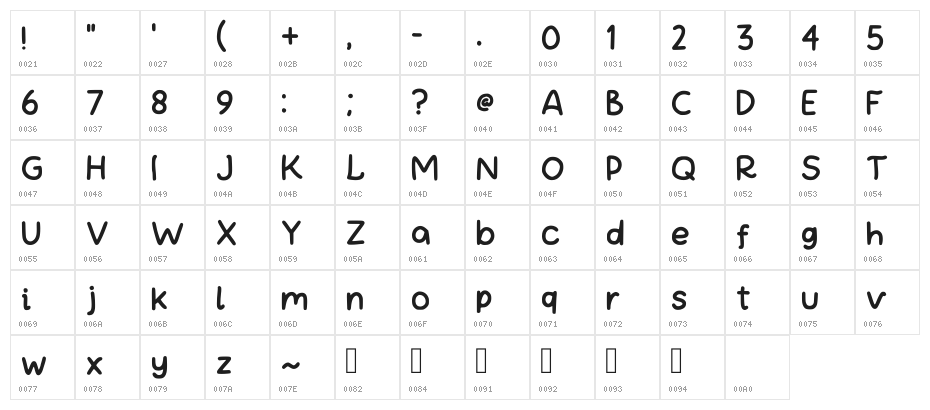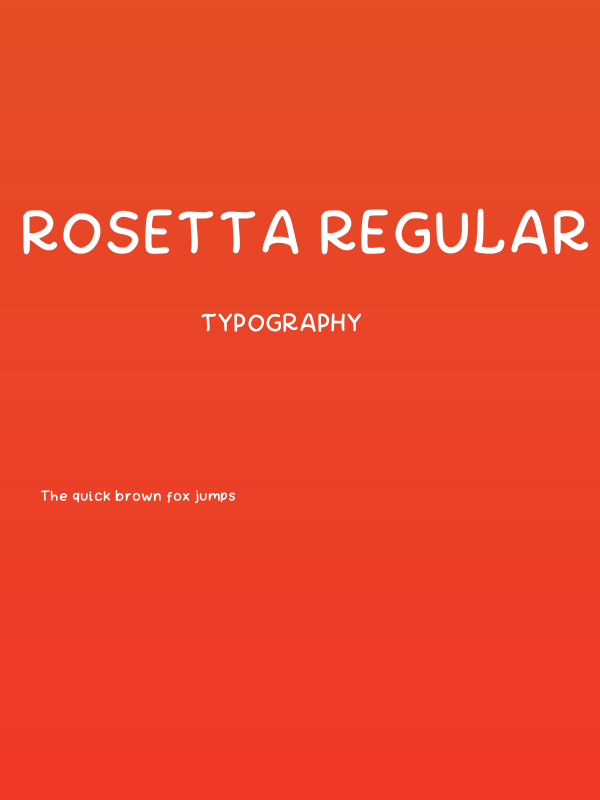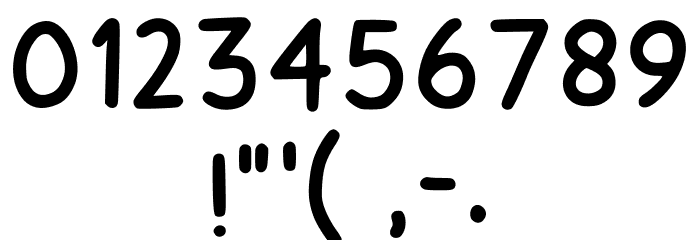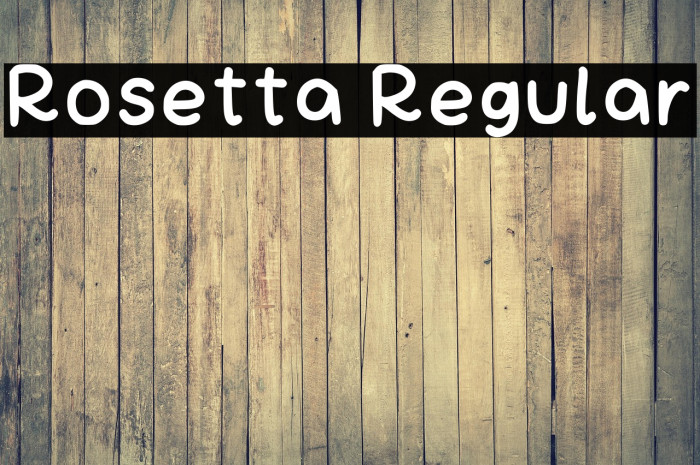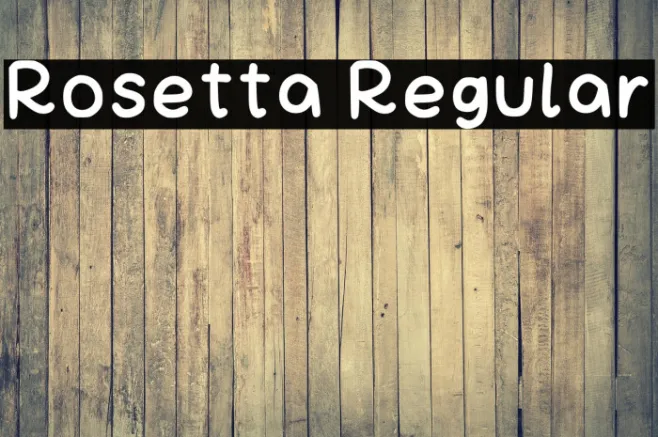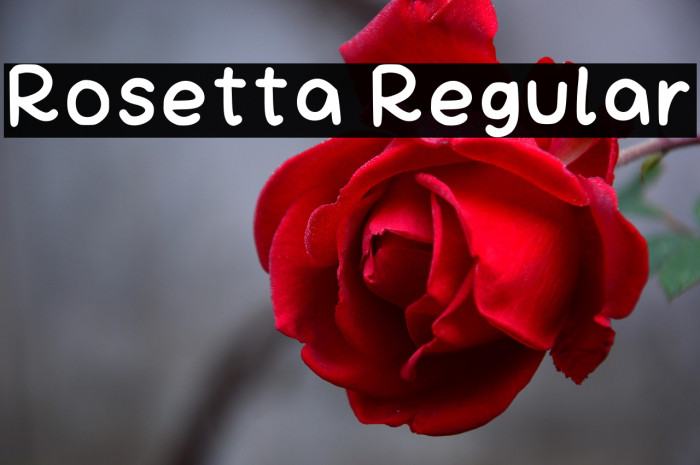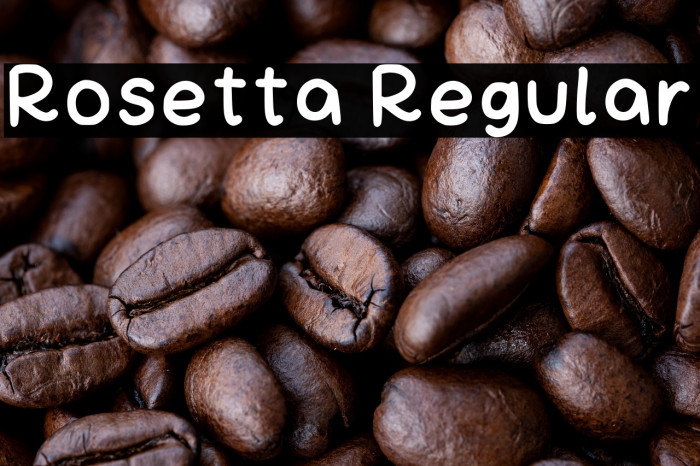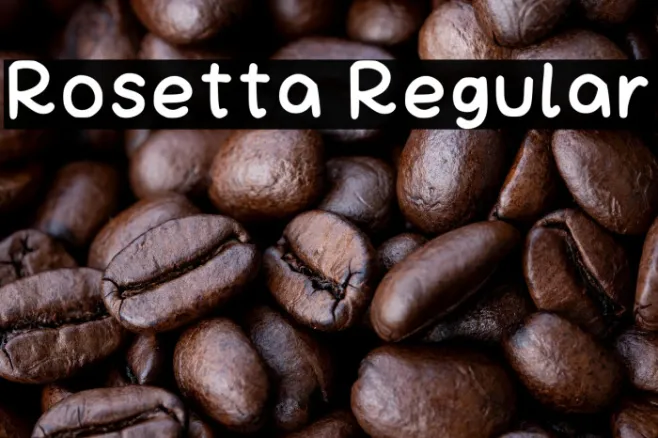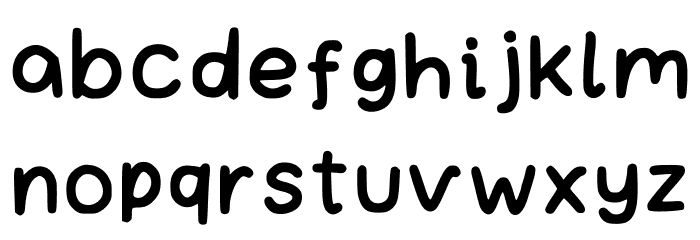
Rosetta Regular Font
Rosetta Regular Description
This playful and rounded font features a casual, handwritten style that exudes warmth and friendliness. The characters are slightly irregular, adding a touch of whimsy and charm. The strokes are consistent in width, providing a uniform appearance that enhances readability. The font includes a full set of uppercase and lowercase letters, numerals, and a selection of special characters, making it versatile for various design needs. Its informal and approachable look makes it suitable for projects that aim to convey a sense of fun and creativity.
| Proposed Projects | Ideal for children's books, greeting cards, playful branding, and informal invitations. |